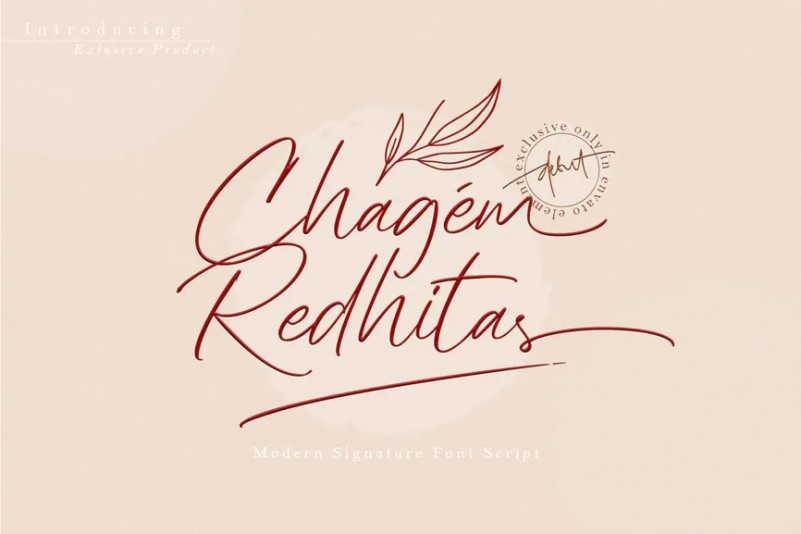
Chagem Redhitas Font
Chagem Redhitas is signature script with brush that contain stylistic alternate, underline to create your own customized signature or logo design.
Chagem Redhitas is a signature font that you can use to make a logo for branding, beautiful fashion design, suitable for wedding invitation, or handwritten quote. Also already PUA Encoded!